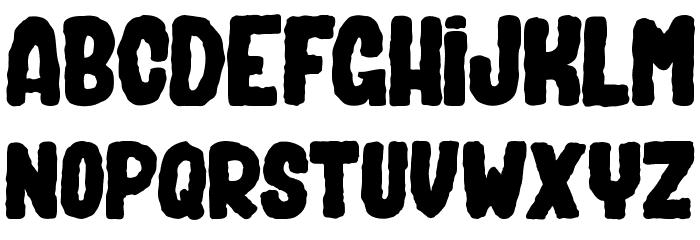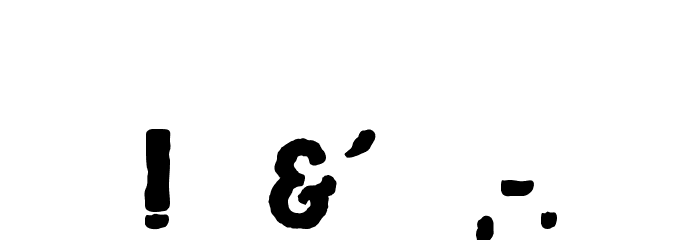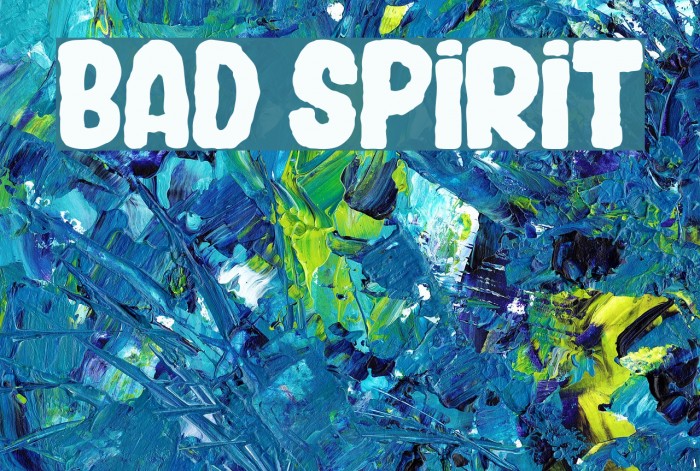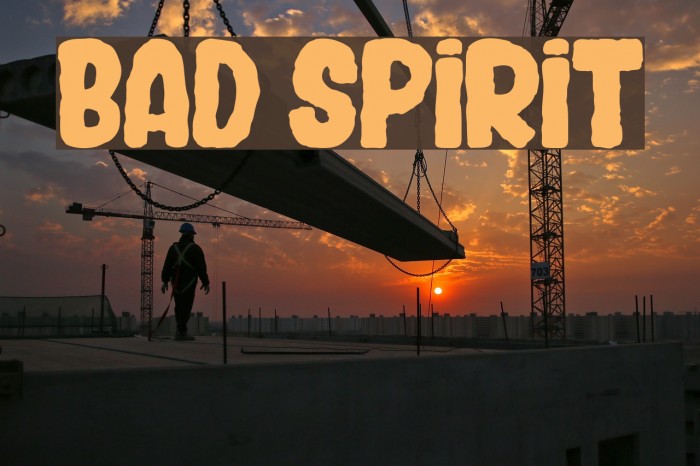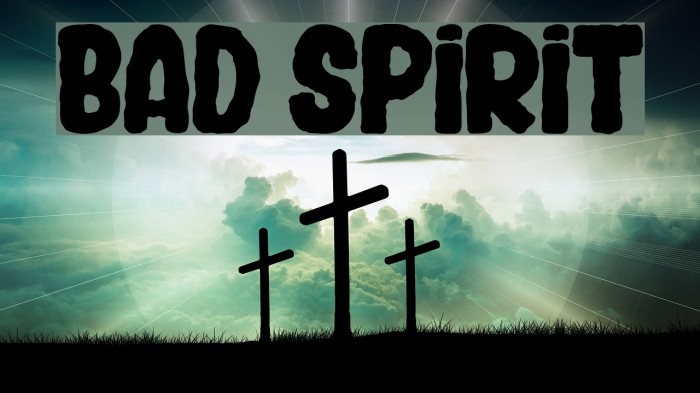
BAD SPIRIT Font
This font features a bold and rugged style with a hand-drawn appearance. The characters are thick and slightly irregular, giving them a unique and organic feel. The uppercase letters are prominent and assertive, while the lowercase letters maintain the same boldness with a touch of playfulness. The numbers and special characters are consistent with the overall style, adding to the font's cohesive look. This font's rough edges and uneven lines contribute to its distinctive, rebellious character, making it stand out in any design.
A bold, rugged, hand-drawn style font with a rebellious character.
- Proposed Projects: Ideal for posters, album covers, branding for edgy or alternative products, and any design needing a bold statement.